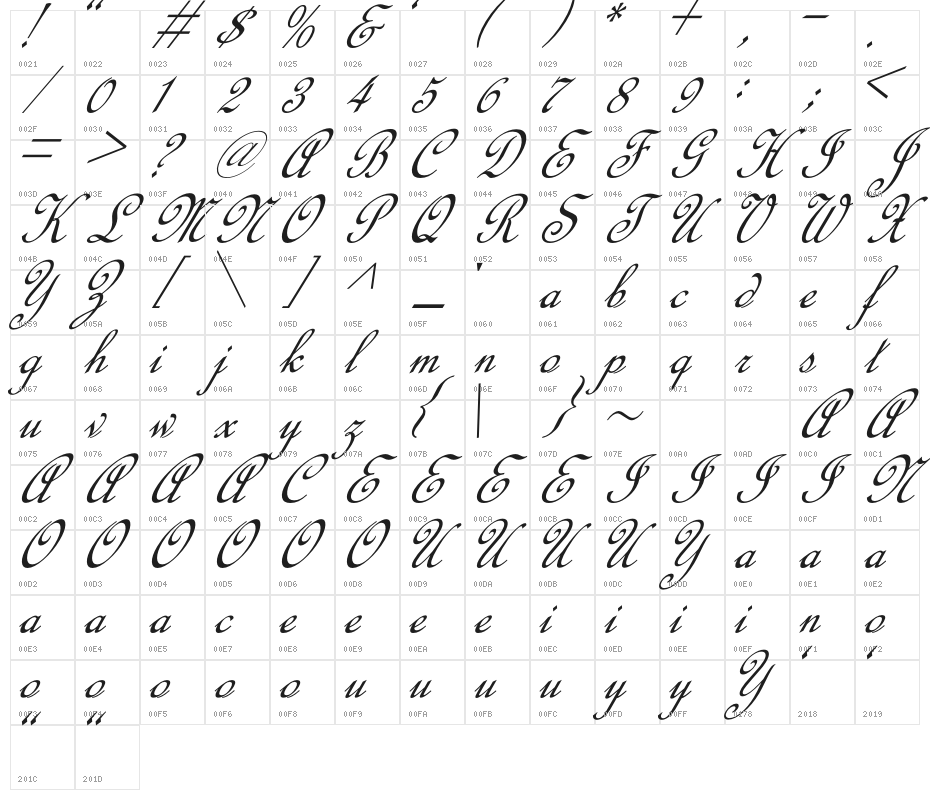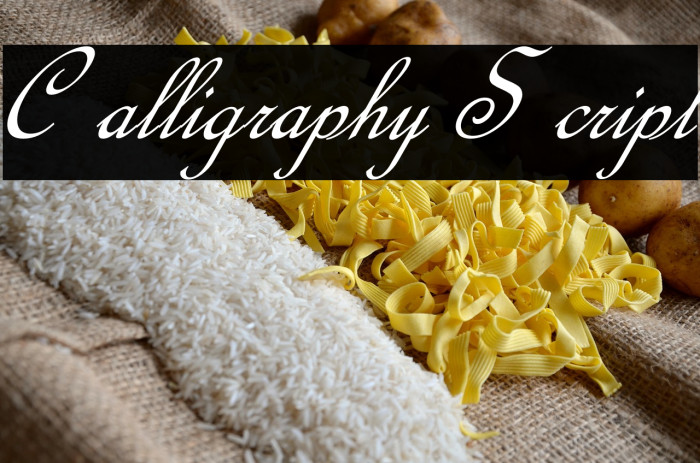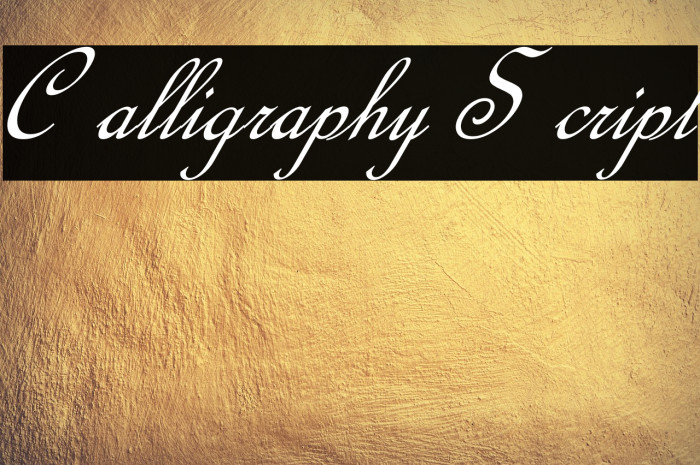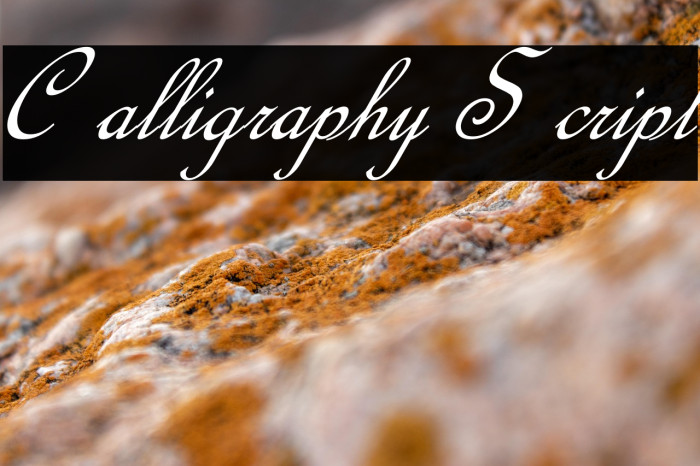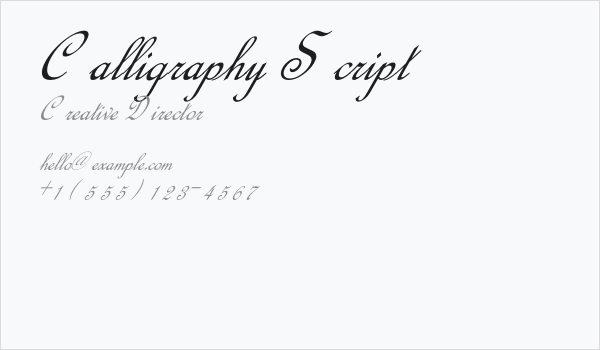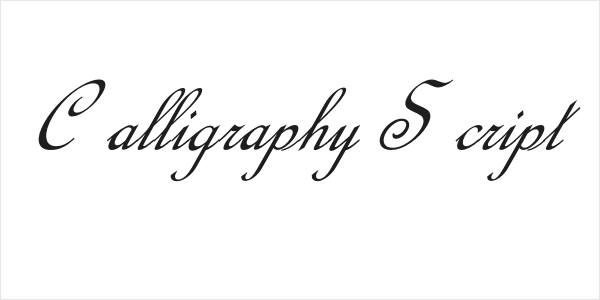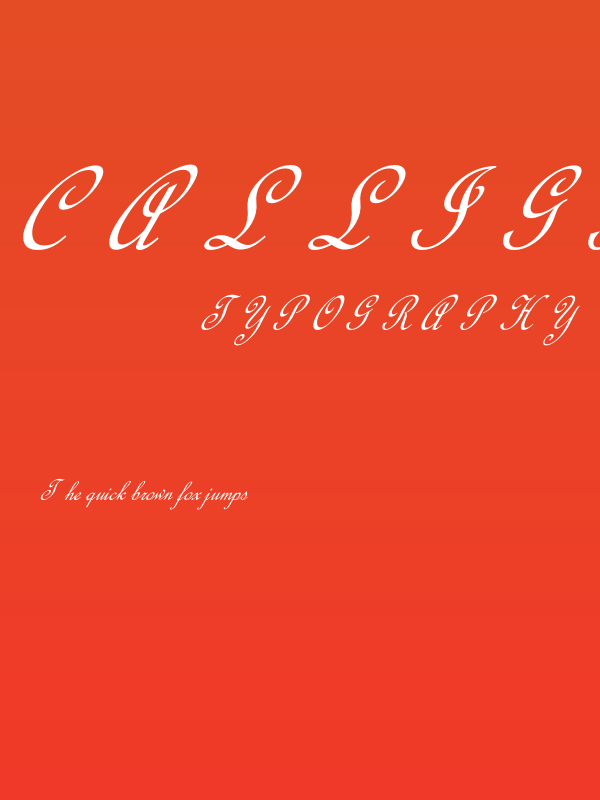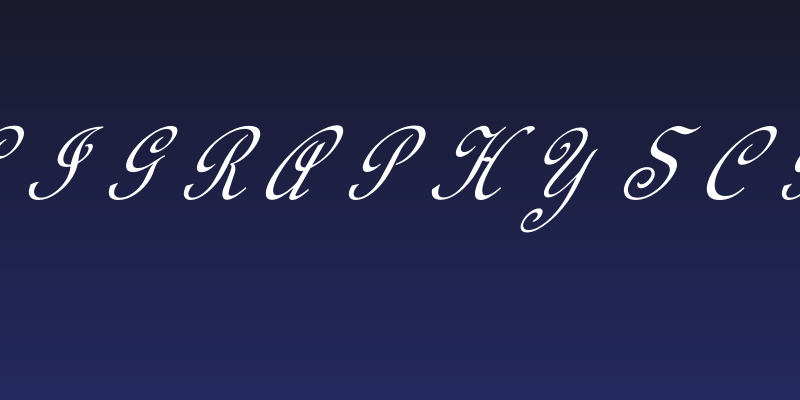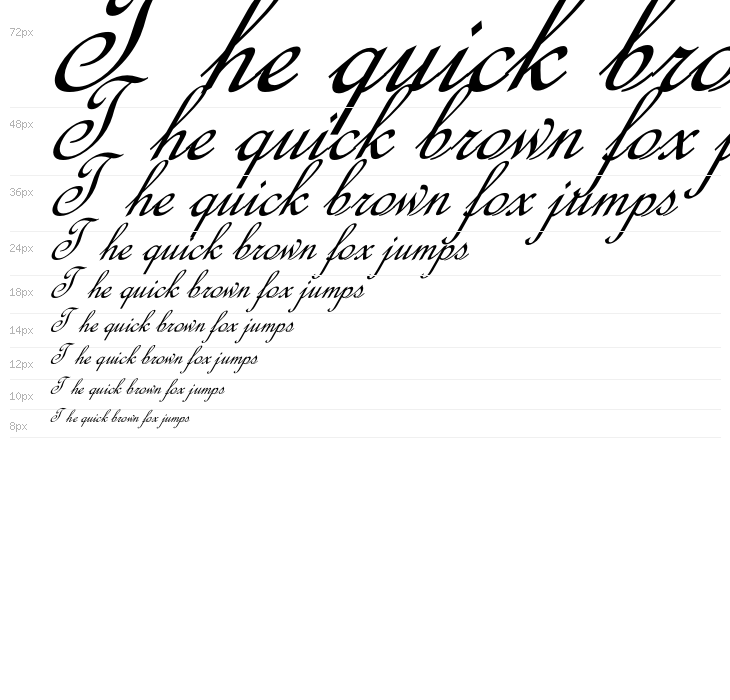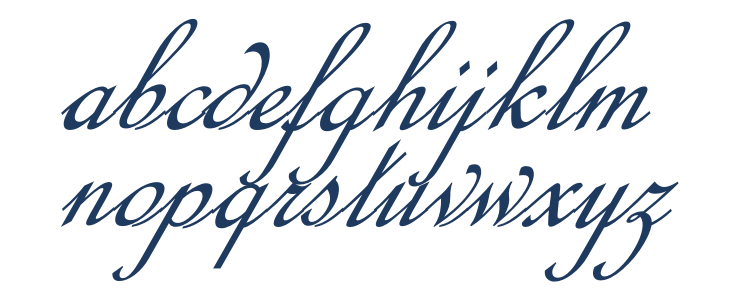
Calligraphy Script Font
Calligraphy Script Description
This elegant script font exudes a classic calligraphic style, characterized by its flowing, interconnected letterforms and graceful curves. The uppercase letters are ornate, with intricate loops and flourishes, while the lowercase letters maintain a consistent fluidity, enhancing readability despite their decorative nature. The numerals and special characters are designed to complement the overall aesthetic, featuring similar stylistic elements. This font is perfect for projects that require a touch of sophistication and elegance, such as wedding invitations, formal event programs, or luxury branding materials.
| Overall Style | Classic |
| Use Case | Headlines, Invitations, Branding |
| Proposed Projects | Ideal for wedding invitations, formal event programs, luxury branding, and elegant stationery. |